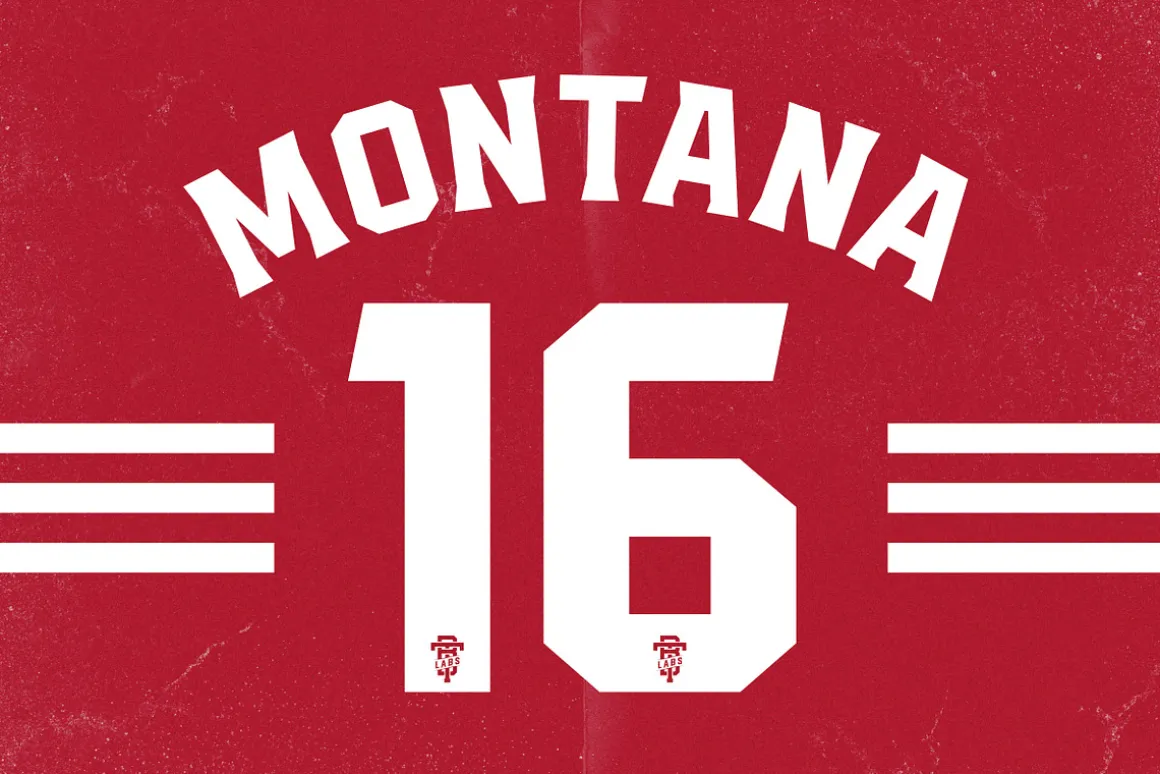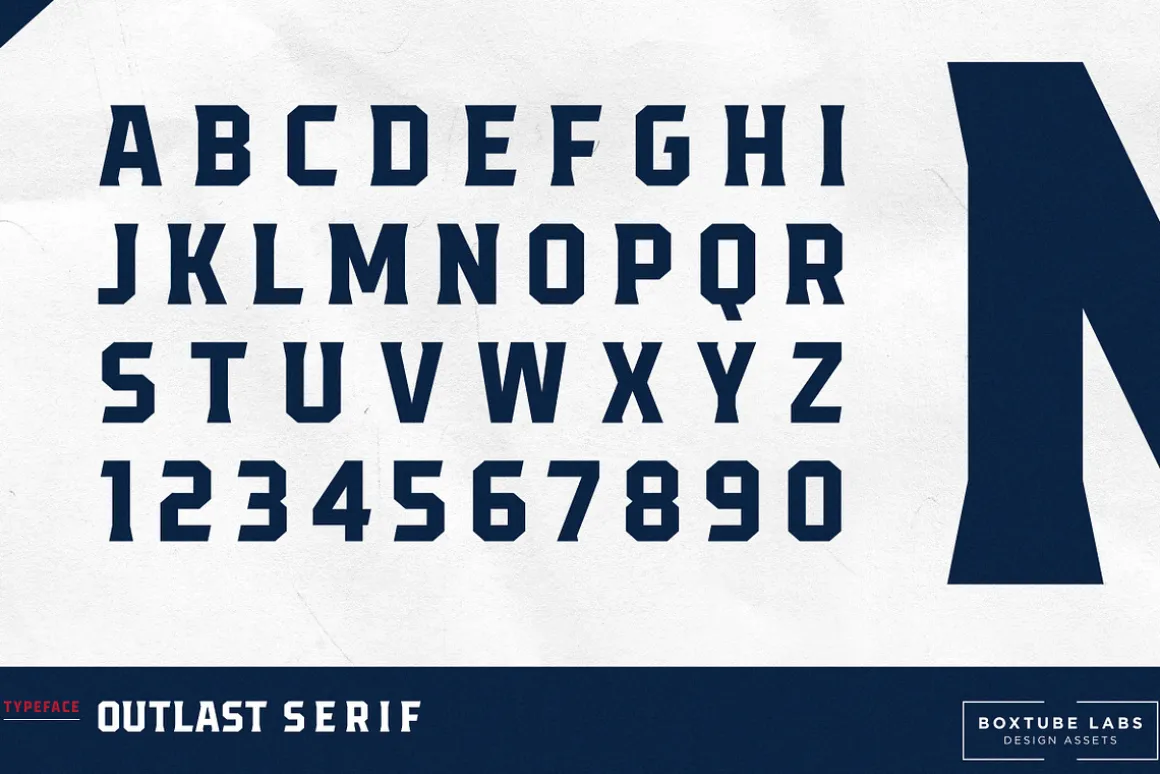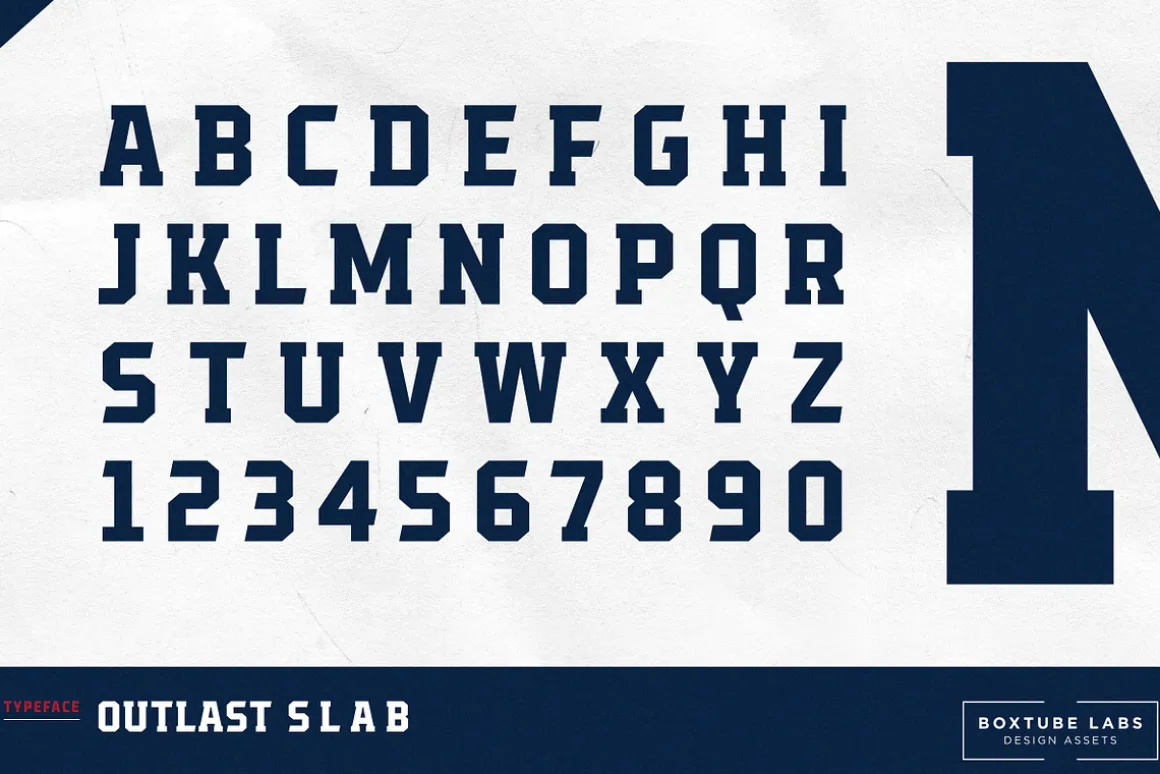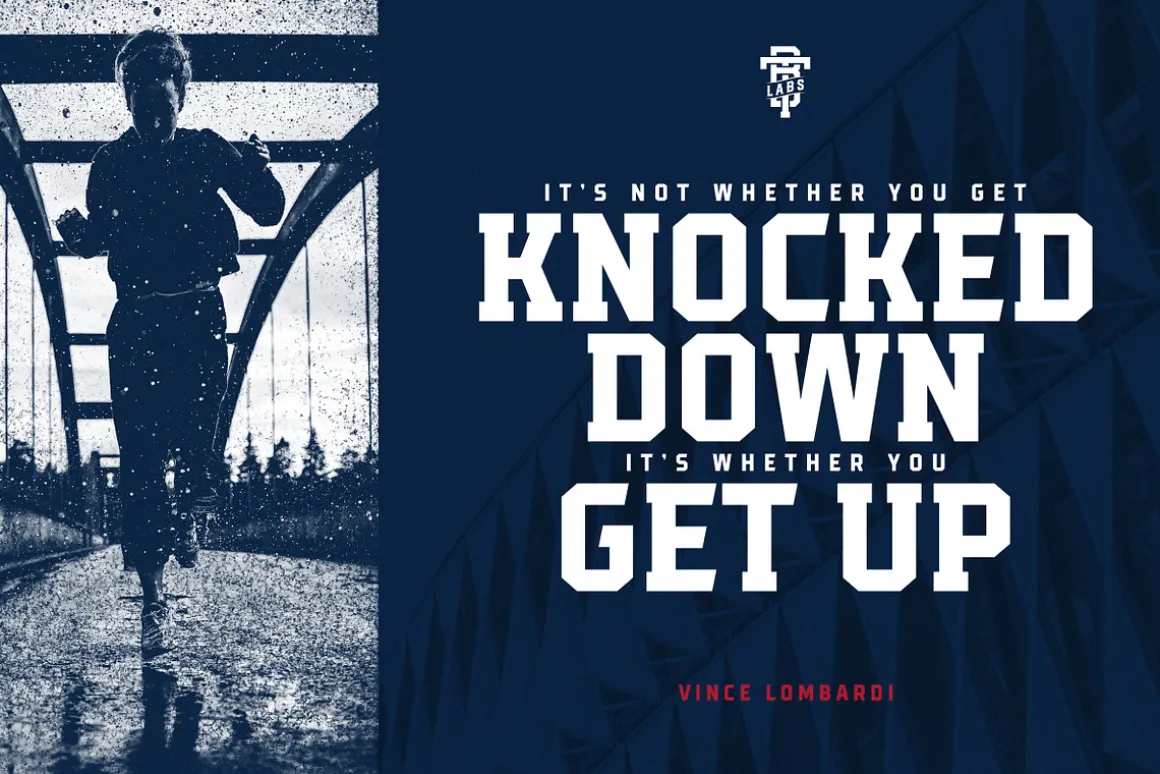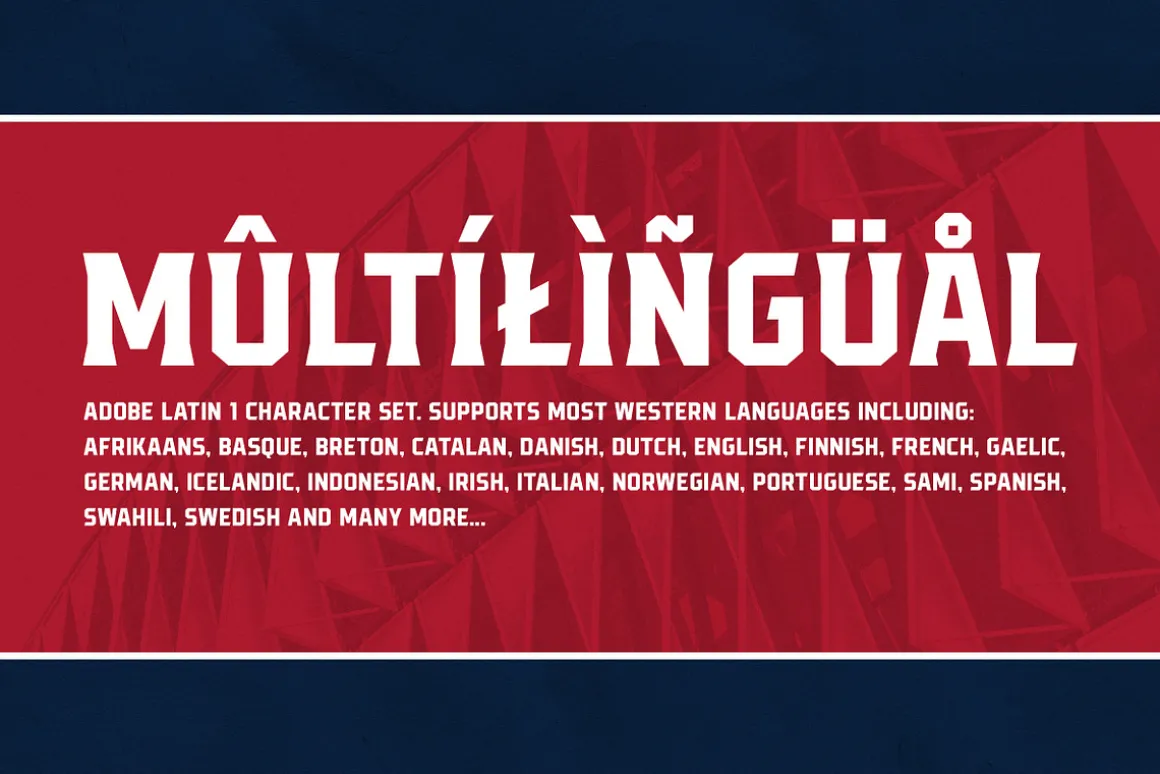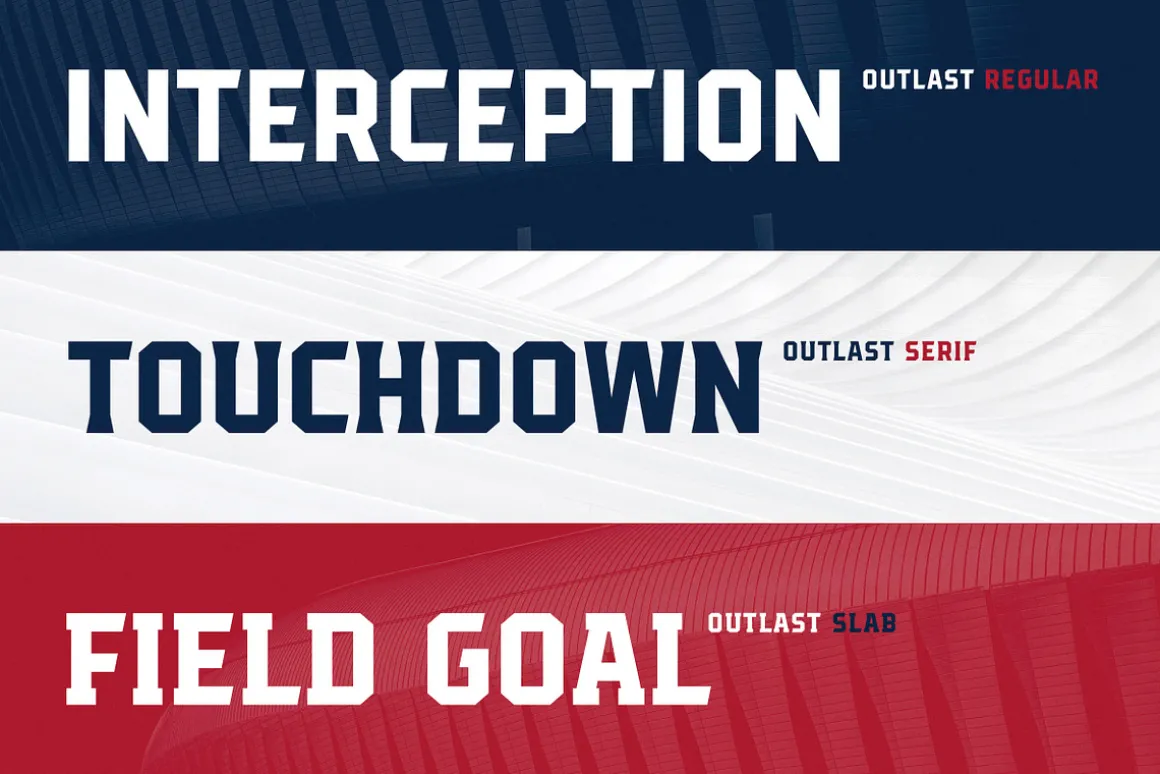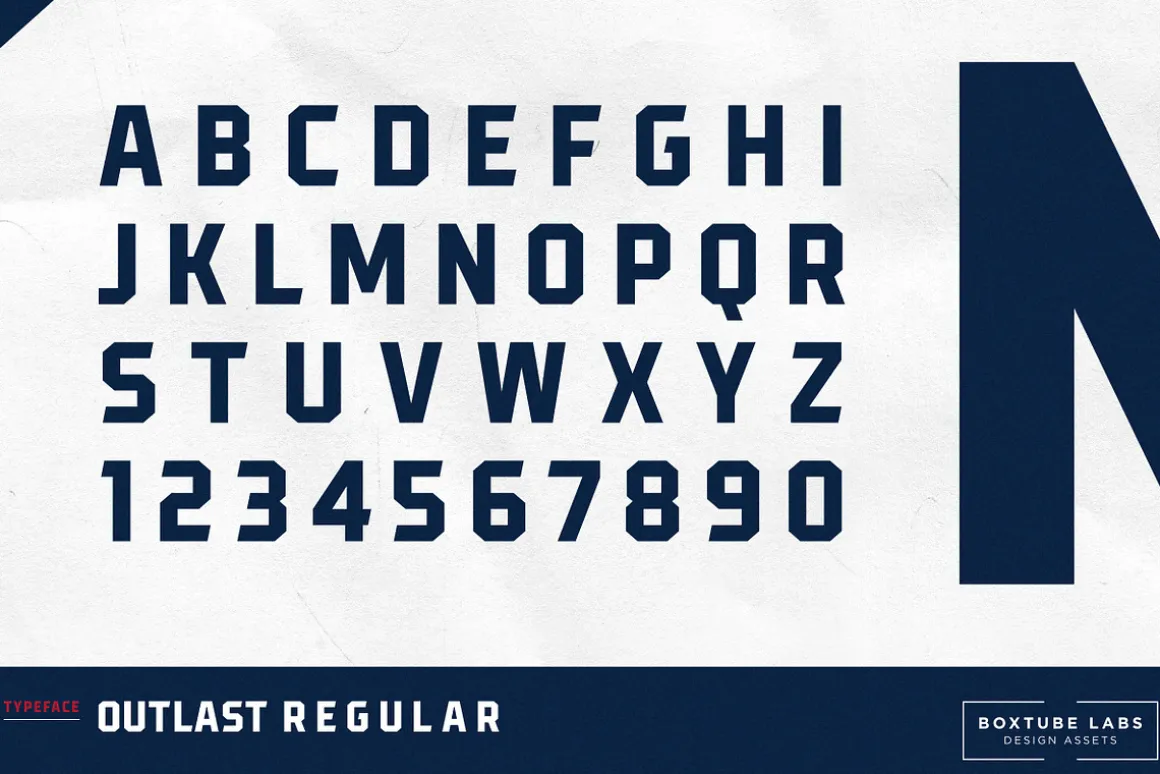
Introducing Outlast – A competitive sports font with three distinct and unique styles.
- Outlast Regular
- Outlast Serif
- Outlast Slab
Outlast was designed for creating powerful logotypes, sports branding, posters, apparel design, magazine headlines, labels and much more.
The font family features a full Adobe Latin 1 character set, with support for most western languages including: Afrikaants, Basque, Breton, Catalan, Danish, Dutch, English, Finnish, French, Gaelic, German, Icelandic, Indonesian, Irish, Italian, Norwegian, Portuguese, Sami, Spanish, Swahili and Swedish.